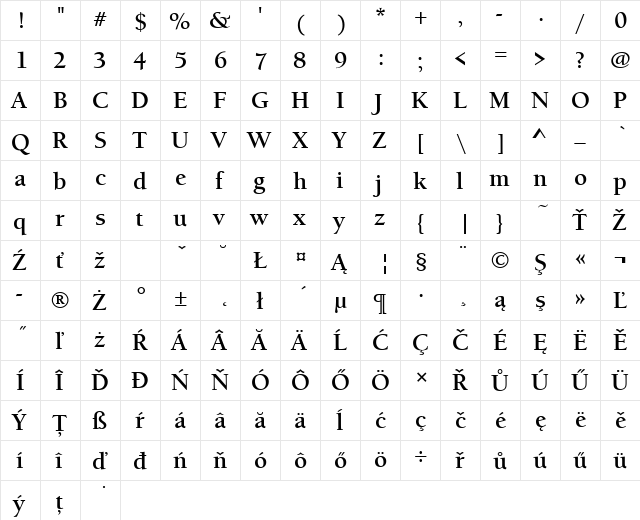
BerkeleyOldStyItcTEE Bold
Design Context for BerkeleyOldStyItcTEE Typeface
BerkeleyOldStyItcTEE is a composed and adaptable typeface that performs quietly and consistently across a wide range of design contexts. Its bold stroke weight gives it real presence on the page.